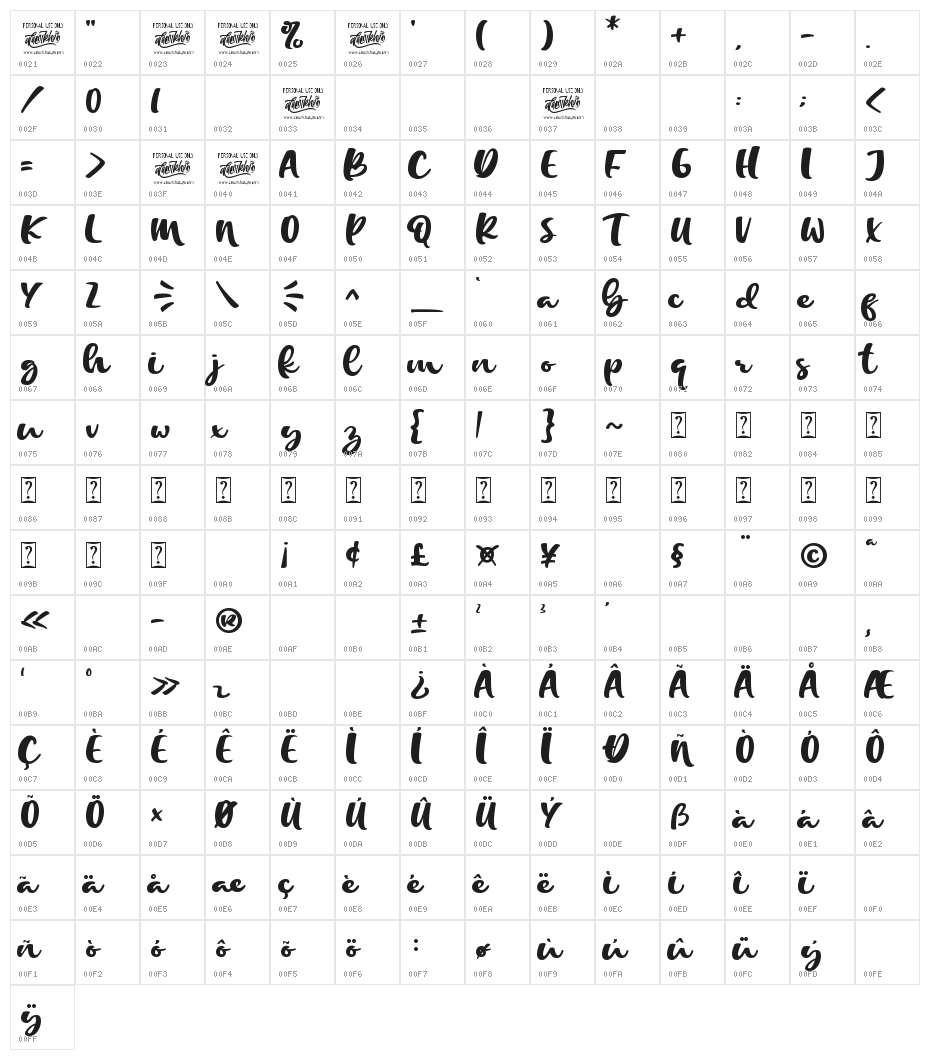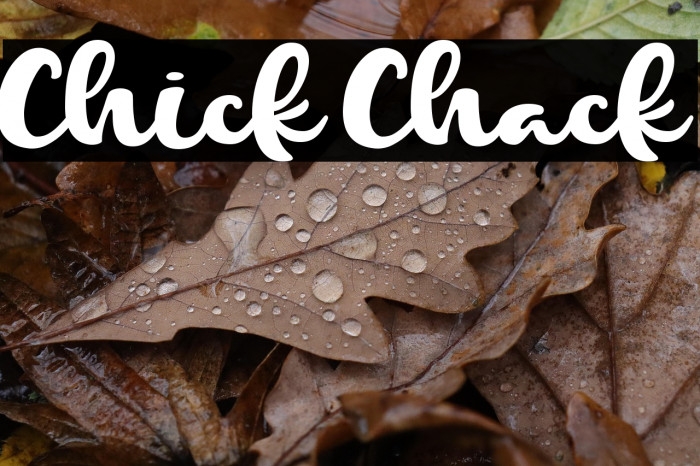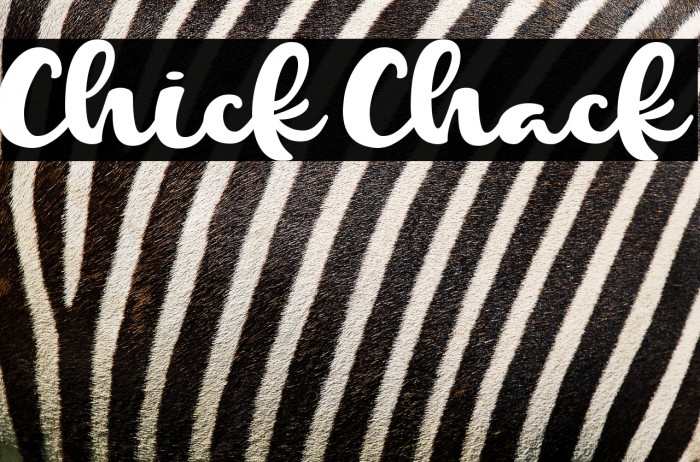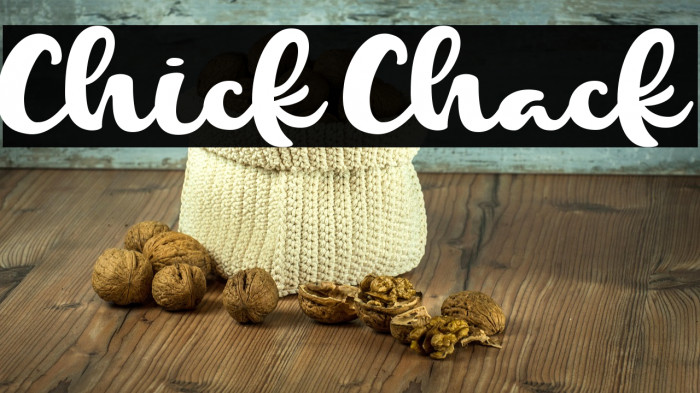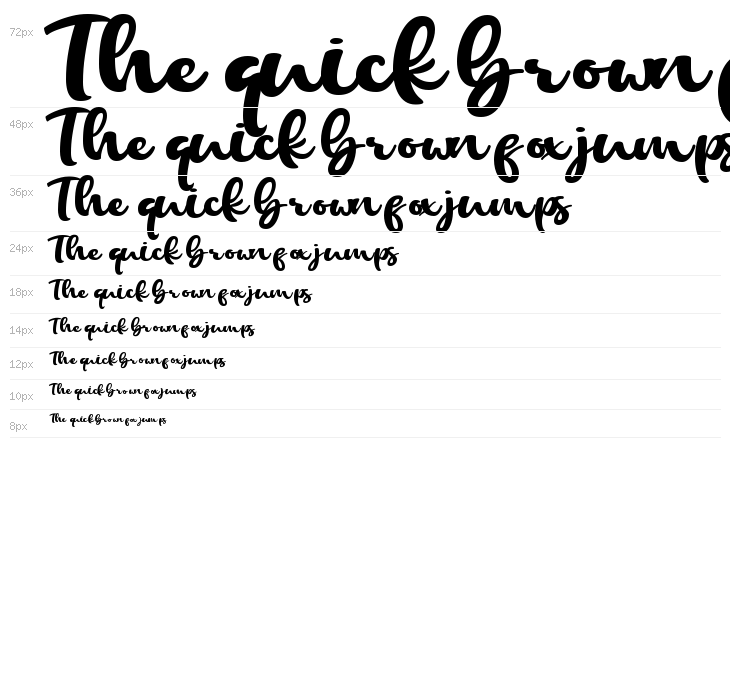
Chick Chack Font
Chick Chack Description
This font features a bold, expressive script style with a hand-drawn appearance. The letters are connected smoothly, giving a fluid and dynamic look. The uppercase characters are slightly larger and more pronounced, while the lowercase letters maintain a consistent flow. The font includes a full set of numerals and a variety of special characters, making it versatile for different uses. Its playful and artistic nature makes it ideal for creative projects. The strokes are thick and consistent, providing a strong visual impact. This font is perfect for adding a personal touch to any design.
| Use Case | Logos, Headlines, Invitations |
| Proposed Projects | Ideal for greeting cards, invitations, logos, branding, and social media graphics. |